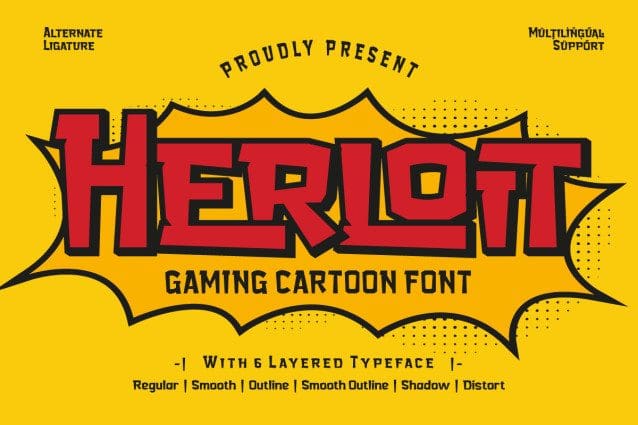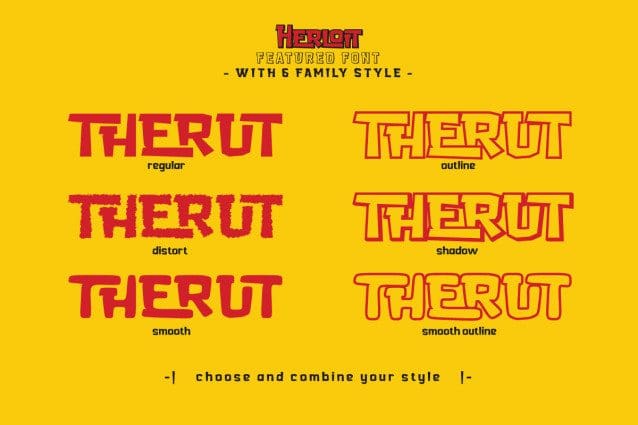
Herloit Gaming Font
Herloit Gaming Font is an unrivaled choice for gaming enthusiasts and designers who want a unique look that reflects the spirit of gaming. With six amazing styles, including Regular, Smooth, Outline, Shadow, and Distort, Herloit brings a new dimension to your designs.
The Regular style provides clarity and readability, while Smooth adds a subtle touch for a more modern aesthetic. Outline brings an artistic element, Shadow provides a deep effect, and Distort brings a striking futuristic look.
Each Herloit Gaming character is designed with precision to provide a charming aesthetic. These fonts are not just tools, they are works of art that enrich your visual design.
With six different styles, Herloit gives you the creative freedom to customize the look of your game to your liking. Bring tension, refinement, or futuristic uniqueness to every detail with Herloit Gaming Display Font.